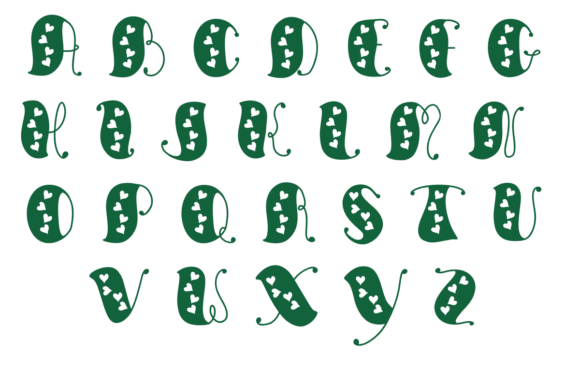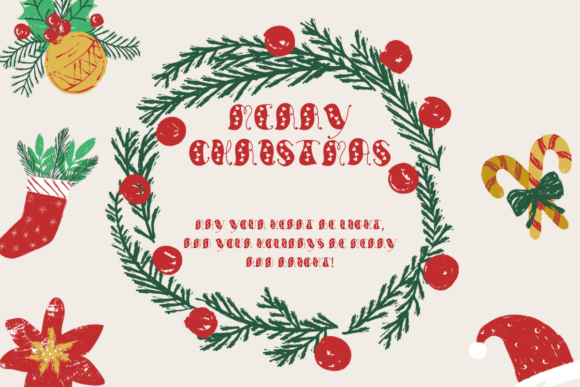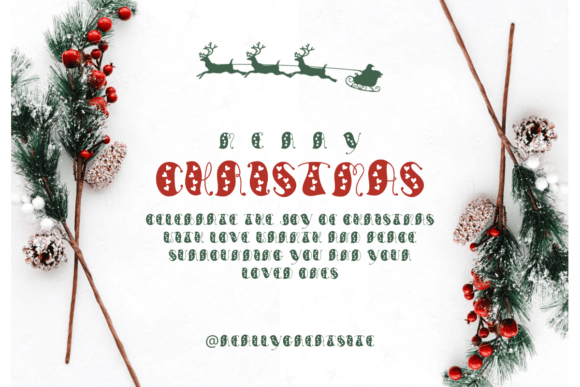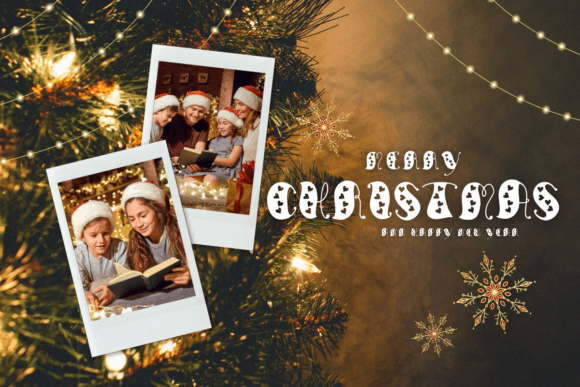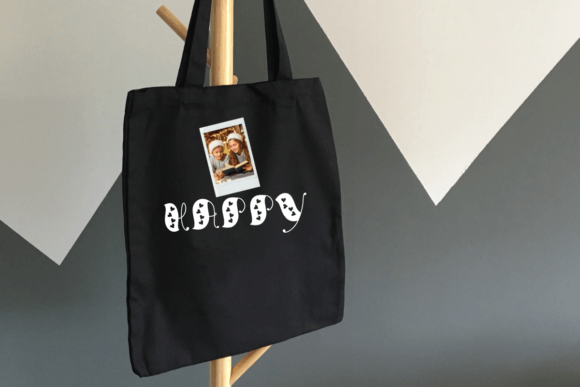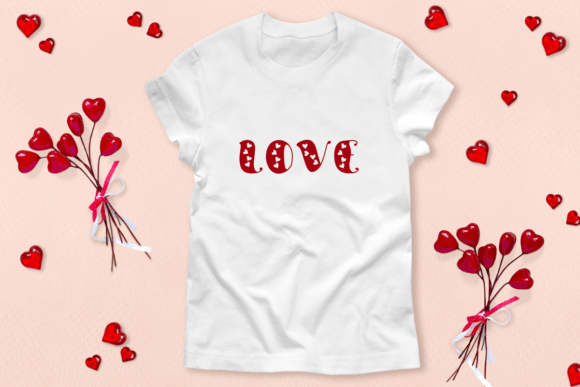
Introducing Christmas Heart Font: The Perfect Addition to Your Holiday Designs
Are you looking for a unique and festive font to add a touch of holiday cheer to your designs? Look no further than the Christmas Heart Font! This decorative font features adorable little hearts in the lines of the letters, making it perfect for a variety of creative projects.
What is Christmas Heart Font?
Christmas Heart Font is a one-of-a-kind font that combines the classic look of a serif font with the whimsy of tiny hearts. The font features intricate details, with small hearts woven throughout the letters, giving it a playful and romantic feel. The result is a font that is both elegant and fun, making it suitable for a wide range of applications.
Uses for Christmas Heart Font
So, what can you do with Christmas Heart Font? The possibilities are endless! Here are some ideas to get you started:
- Take notes in style: Add a touch of holiday flair to your notes and to-do lists with Christmas Heart Font. It’s the perfect way to make your notes stand out and add some personality to your daily routine.
- Write a heartfelt diary entry: Write your holiday thoughts and reflections in a beautiful and unique font that will make your diary entries extra special.
- Create stunning greeting cards: Use Christmas Heart Font to create one-of-a-kind greeting cards for your loved ones. The font’s playful and romantic feel makes it perfect for holiday cards, Valentine’s Day cards, and more.
- Design eye-catching banners: Add a festive touch to your banners and signs with Christmas Heart Font. It’s perfect for holiday markets, craft fairs, and other events.
- Make your content shine: Use Christmas Heart Font to add a touch of whimsy to your blog posts, social media updates, and other online content.
- Personalize your gifts: Use Christmas Heart Font to create custom designs for mugs, cards, shirts, and other gifts. It’s a great way to add a personal touch and make your gifts extra special.
- Stationery and more: Use Christmas Heart Font to create custom stationery, including notebooks, journals, and letterhead.
Why Choose Christmas Heart Font?
So, why should you choose Christmas Heart Font for your holiday designs? Here are just a few reasons:
- Unique and eye-catching: Christmas Heart Font is a one-of-a-kind font that will add a touch of personality to your designs.
- Versatile: The font can be used for a wide range of applications, from notes and diaries to banners and social media posts.
- Perfect for the holiday season: The font’s festive and playful feel makes it perfect for the holiday season, but it can also be used for other special occasions, like Valentine’s Day and weddings.
Tips for Using Christmas Heart Font
Here are a few tips for getting the most out of Christmas Heart Font:
- Experiment with different sizes: Christmas Heart Font looks great in a variety of sizes, from small and delicate to large and bold.
- Pair with other fonts: Try pairing Christmas Heart Font with other fonts to create a unique and eye-catching look.
- Use it sparingly: While Christmas Heart Font is perfect for adding a touch of whimsy to your designs, it’s best to use it sparingly to avoid overwhelming the design.
In conclusion, Christmas Heart Font is a unique and versatile font that is perfect for adding a touch of holiday cheer to your designs. Whether you’re a designer, crafter, or simply someone who loves the holiday season, this font is sure to become a favorite. So why wait? Download Christmas Heart Font today and start creating your own holiday magic!